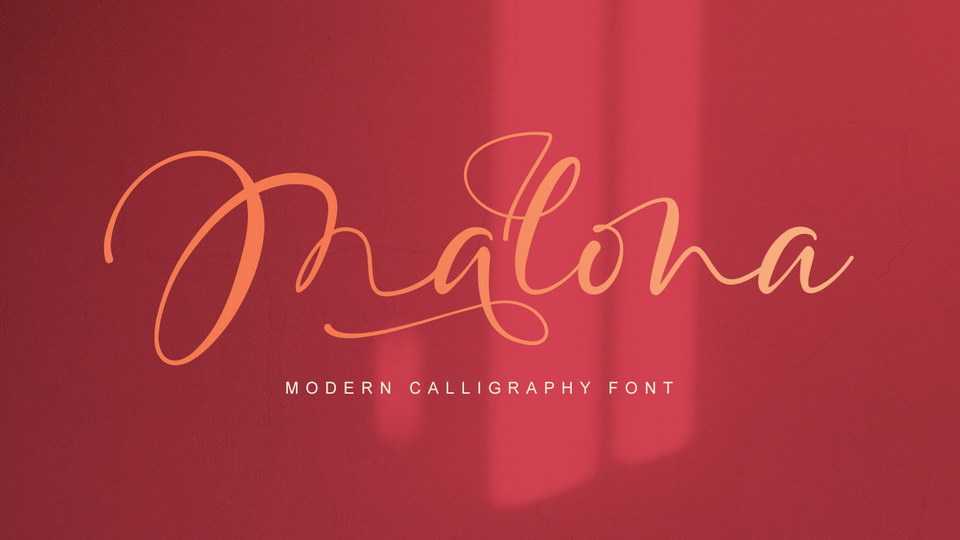
Download Malona font, beautiful modern calligraphy typeface. Malona is the perfect font for wedding invitations, stationery, photography, social media posts, product packaging, and much more!